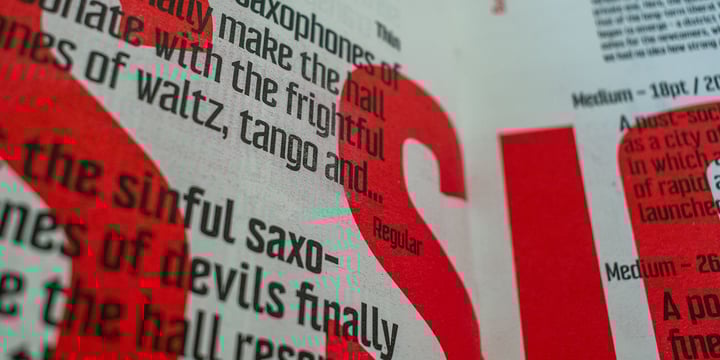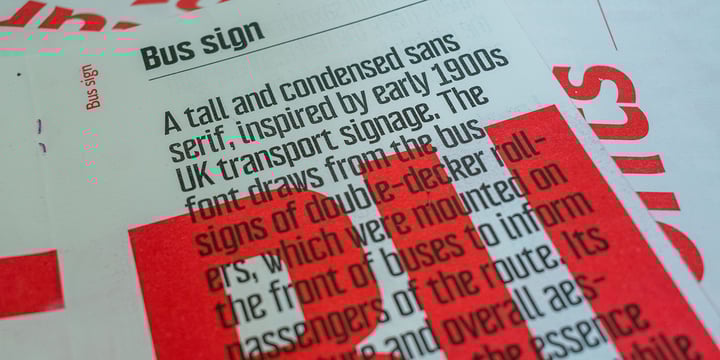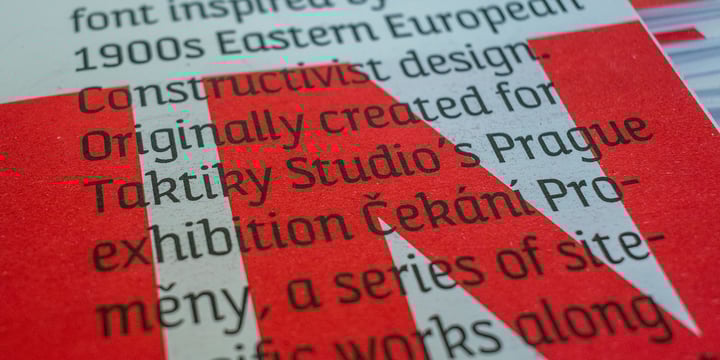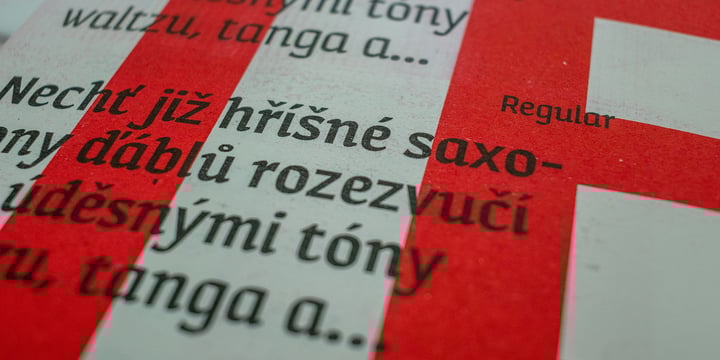
25B biannual newsletter fonts bundle
Introducing our 25B biannual newsletter fonts bundle, featuring two exceptional fonts crafted for commercial release: Intervention, a striking display font inspired by early 1900s Constructivist design from Eastern Europe, and Bus Sign, a tall and condensed sans serif typeface influenced by early 1900s UK transport signage. These fonts are ideal for branding and editorial design, excelling in print applications. Whether you're working on marketing materials, social media graphics, or packaging, this bundle offers versatile options that will elevate your next project.